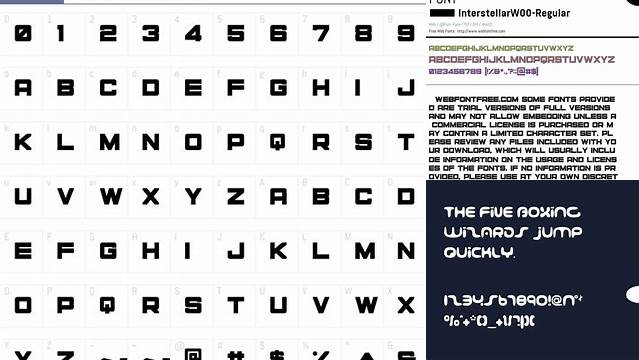
Are you a designer looking for that perfect font to add a touch of futuristic elegance to your projects? Look no further! We're diving deep into the Interstellar Regular font, a typeface that has captured the imagination of designers worldwide. This comprehensive guide provides you with everything you need to know, from a free download to usage tips and design inspiration. So, let's jump right in, guys!
What is the Interstellar Regular Font?
Interstellar Regular is a sleek, modern font that exudes a sense of space, technology, and sophistication. Its clean lines and geometric shapes make it incredibly versatile, suitable for a wide range of design applications. It's the kind of font that can instantly elevate your project, giving it a polished and contemporary feel. Created by the talented Jacek Krawczyk, Interstellar Regular has become a favorite among graphic designers, branding experts, and anyone looking to create visually stunning content. Whether you're designing a website, crafting marketing materials, or working on a personal project, this font can be a game-changer. Its distinctive style is reminiscent of sci-fi movies and futuristic themes, making it perfect for projects that aim to capture a sense of innovation and forward-thinking. The font's readability is also a key factor in its popularity. It's designed to be clear and easy to read, even at smaller sizes, making it ideal for both headlines and body text. This blend of style and functionality is what sets Interstellar Regular apart, and why it's a must-have in any designer's toolkit. So, when it comes to finding a font that's both stylish and practical, Interstellar Regular is definitely one to consider. In essence, Interstellar Regular isn't just a font; it's a design statement.
Interstellar Regular Font: Usage and Design Inspiration
Once you've got the Interstellar Regular font installed, the real fun begins! This font's versatility allows for various creative applications. Its modern and clean aesthetic makes it ideal for headings, logos, and titles. Imagine using it for a tech company's website or a futuristic product's branding. The font's unique style will instantly convey a sense of innovation and modernity. Interstellar Regular also works well in body text, especially when used for short paragraphs or captions. Its readability ensures your message is clear and accessible. When using the font, consider pairing it with other fonts to create visual interest and balance. For example, you could combine Interstellar Regular with a more classic serif font for body text, adding contrast and enhancing readability. Color plays a crucial role in bringing out the best in this font. The font looks fantastic when used with cool colors such as blues, silvers, and blacks. These colors enhance the futuristic and technological vibe of the font. Gradients can also add a dynamic and modern feel. Design inspiration is everywhere! Look at websites, magazines, and other design projects using similar fonts. Experiment with different layouts, sizes, and weights to find what works best for your project. Remember that the font is just one element of your design. Consider other factors like spacing, color, and imagery to create a cohesive and visually appealing design. It’s all about experimenting and finding what looks cool.
Benefits of Using the Interstellar Regular Font
Interstellar Regular Font: Tips and Tricks
To get the most out of the Interstellar Regular font, here are some tips and tricks to elevate your designs. Start by experimenting with different font sizes and weights. This will help you determine the best visual balance for your project. Varying the size and weight of the font can also create a hierarchy, guiding the reader's eye through your content. Pay attention to the kerning and leading. Kerning refers to the spacing between individual letters, while leading refers to the spacing between lines of text. Adjusting these settings can improve readability and overall visual appeal. Consider using the font in all caps or lowercase, or experiment with a combination of both, depending on the design's needs. All caps can create a bold and impactful look, while lowercase can be more subtle and elegant. Pairing the font with other fonts is an excellent way to add visual interest and contrast. Choose complementary fonts that complement the Interstellar Regular font without clashing. Using a more classic serif font for body text can create a pleasing contrast, making your design more dynamic. Always keep in mind the context of your design. Consider the target audience and the message you want to convey. The font should complement the overall theme and tone of your project. Regularly update your font library. Download the latest versions of the Interstellar Regular font to ensure you have the latest features and improvements. Always stay current. This is key, people!
Conclusion: Why Choose Interstellar Regular?
In conclusion, the Interstellar Regular font is a fantastic choice for any designer looking to add a touch of modern elegance and a futuristic feel to their projects. Its availability as a free download, combined with its versatile design and readability, makes it an invaluable asset in any design arsenal. The font's sleek lines and geometric shapes are perfect for a wide range of applications, from website design to branding materials. If you're a designer looking for a font that will make your projects stand out, definitely give Interstellar Regular a try. Remember to always download fonts from reputable sources and carefully review the licensing agreements. With a little creativity and the right approach, you can create stunning designs that capture the imagination of your audience. Embrace the future, design some stellar stuff and have fun with the font! It is a must-have for your design toolbox, guys!